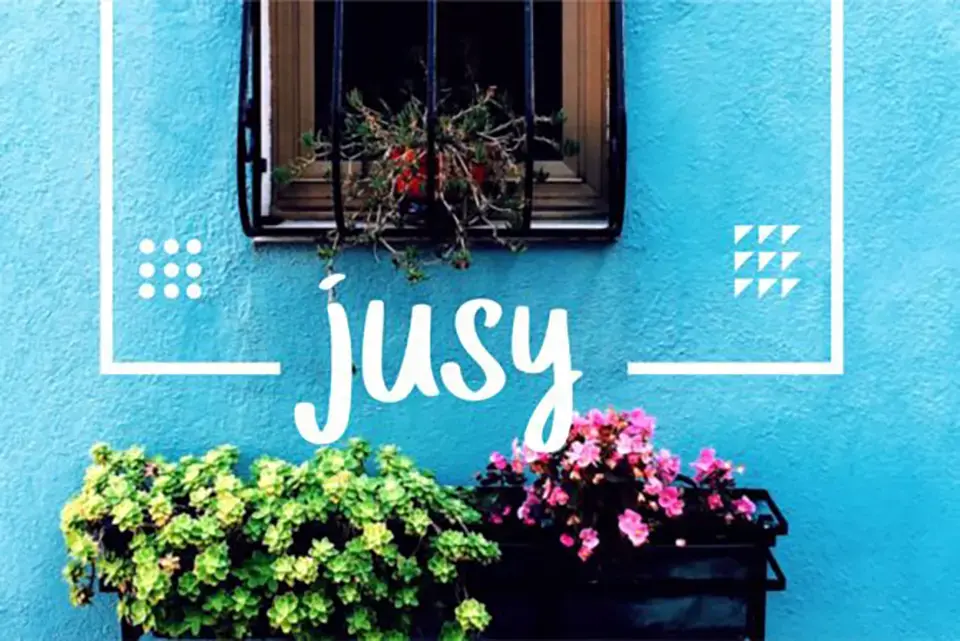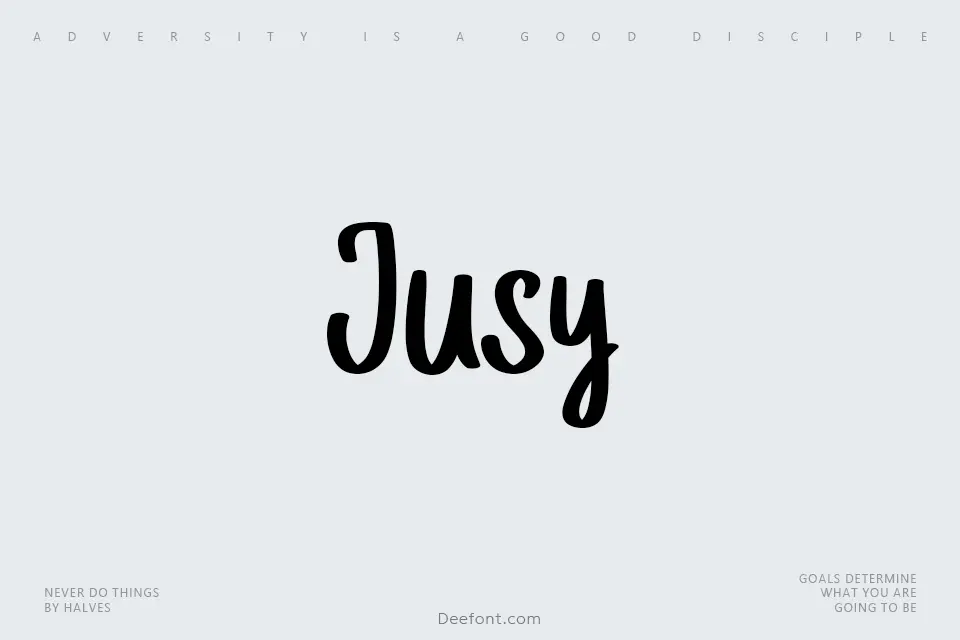
Jusy Font
Jusy is an elegant handwritten script font that combines smooth, flowing letterforms with a contemporary calligraphic style. This versatile typeface features expressive character design with natural pen strokes, making it ideal for creative design projects including posters, invitations, greeting cards, logos, and display typography. The font's organic, hand-lettered appearance brings authentic personal warmth to headlines and decorative text while maintaining excellent readability at various sizes, perfect for both digital and print applications.